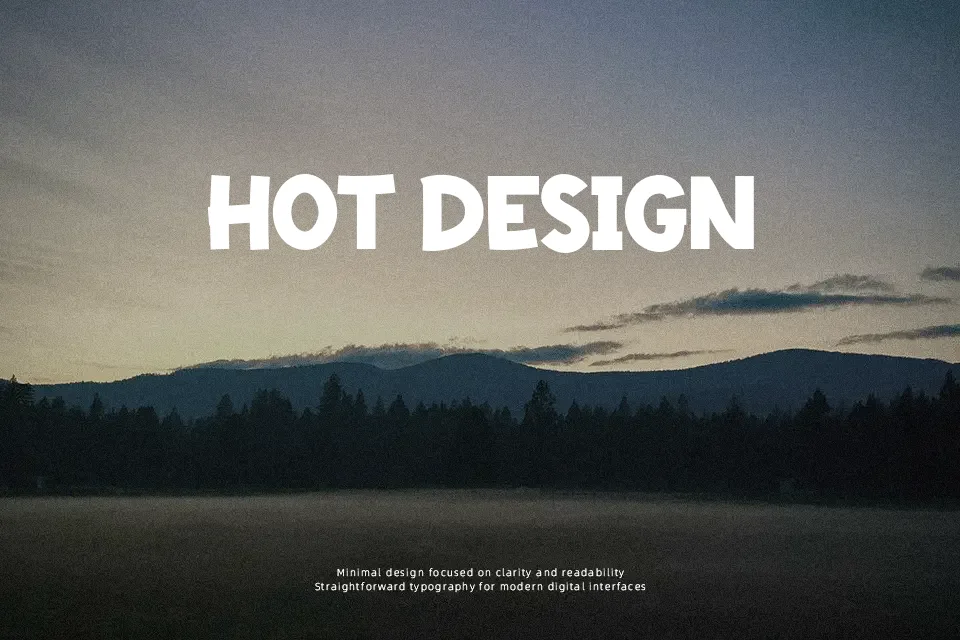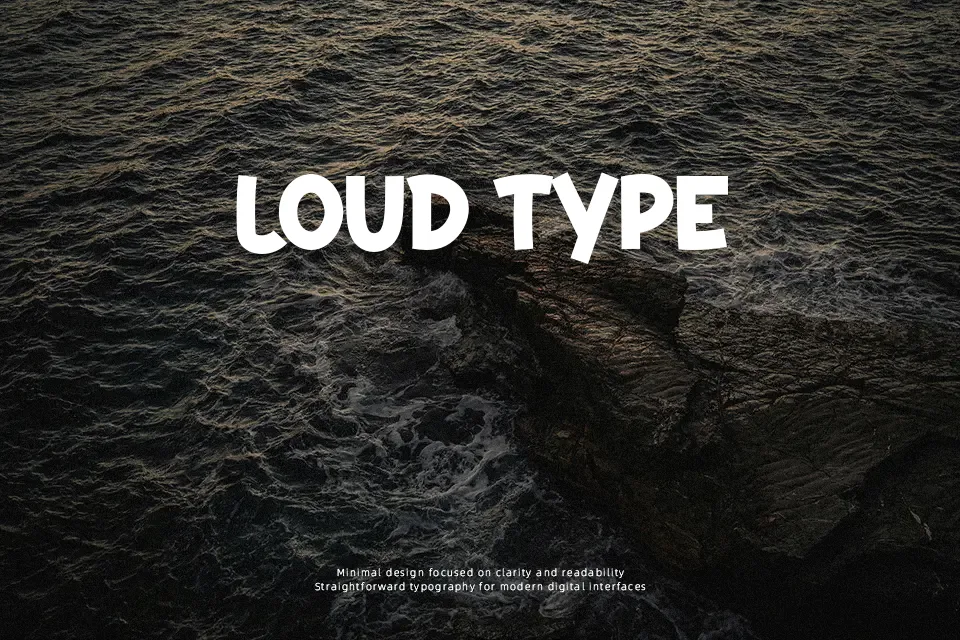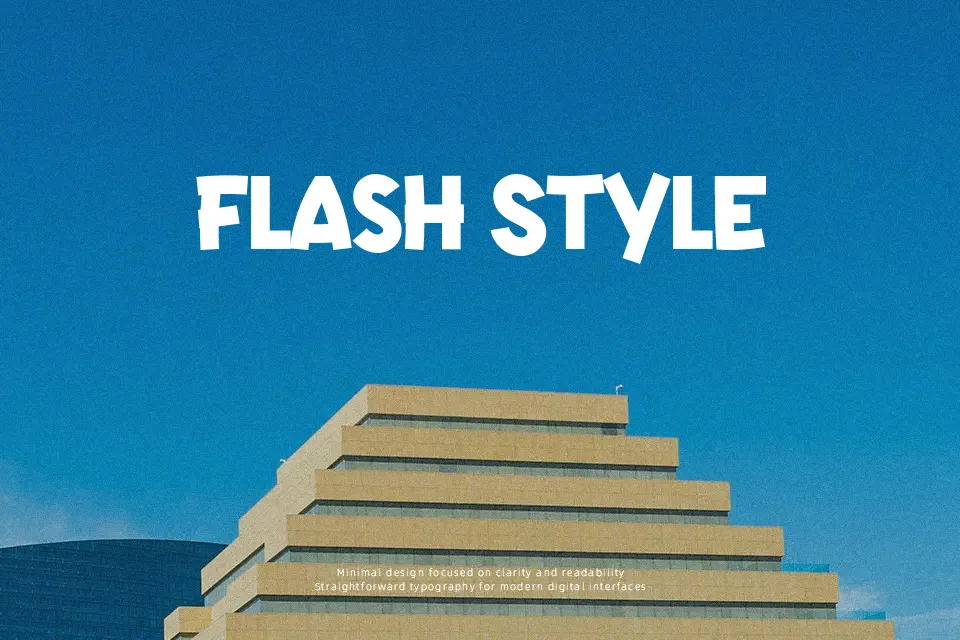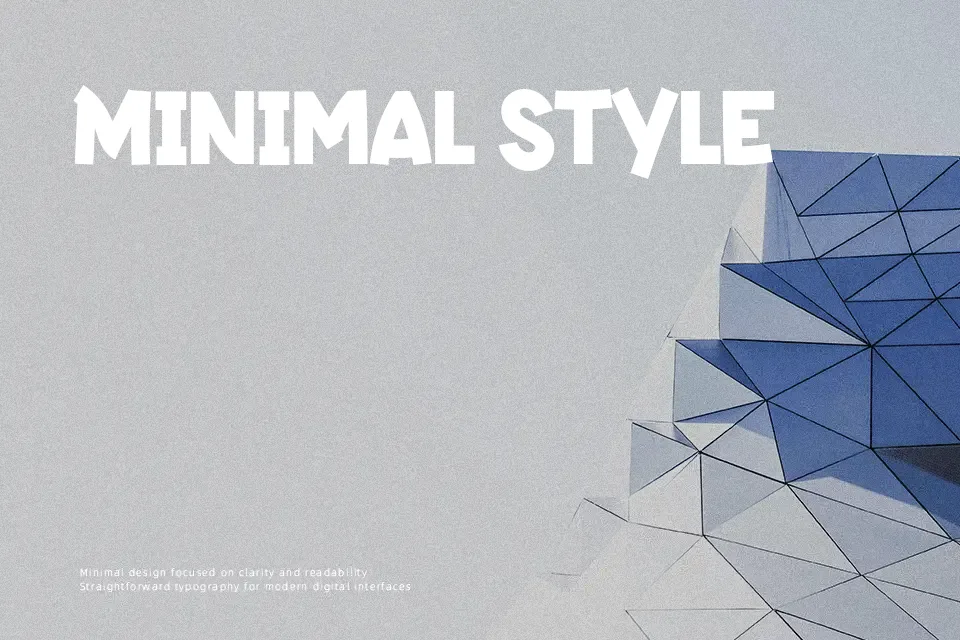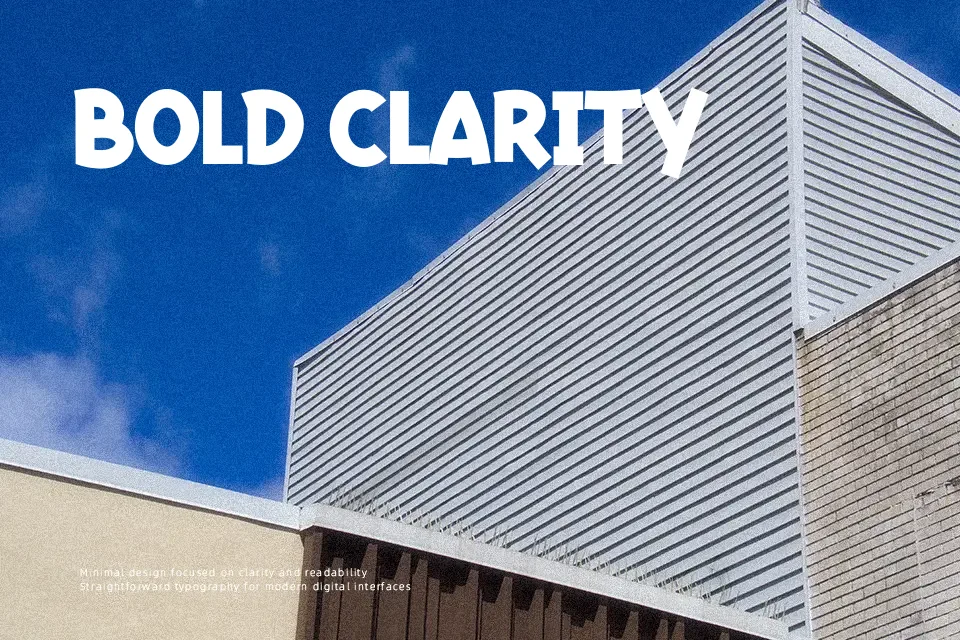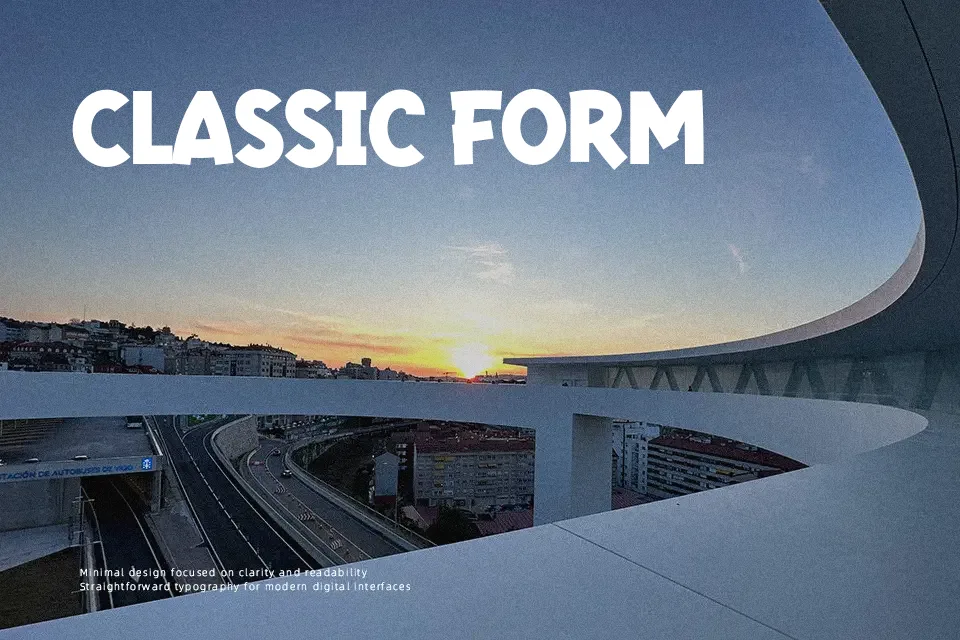
Aquatic Font
Designed by twinletter
Aquatic shows up as a thick, rounded display face with compact spacing, exaggerated curves, and sturdy strokes that push it firmly into a playful cartoon category. It feels informal and energetic rather than refined, so it works when you want bold, characterful wording on children’s book covers, adventure game titles, or youth-oriented branding. The letterforms are strong and legible at headline sizes, but the decorative styling quickly becomes tiring in long paragraphs or body copy. Use it when you need loud, fun emphasis; avoid it when the project calls for subtle, corporate, or highly text-heavy layouts.
gaming logo wordmarks and title screens
kids’ movie, cartoon or adventure posters
playful branding for snacks, toys or events
long paragraph text or editorial layouts
formal corporate reports or serious documents
minimalist UI, app interfaces or small captions
wedding stationery or elegant luxury branding
Perfect for film, gaming, and kids, with a artistic and cartoon style.